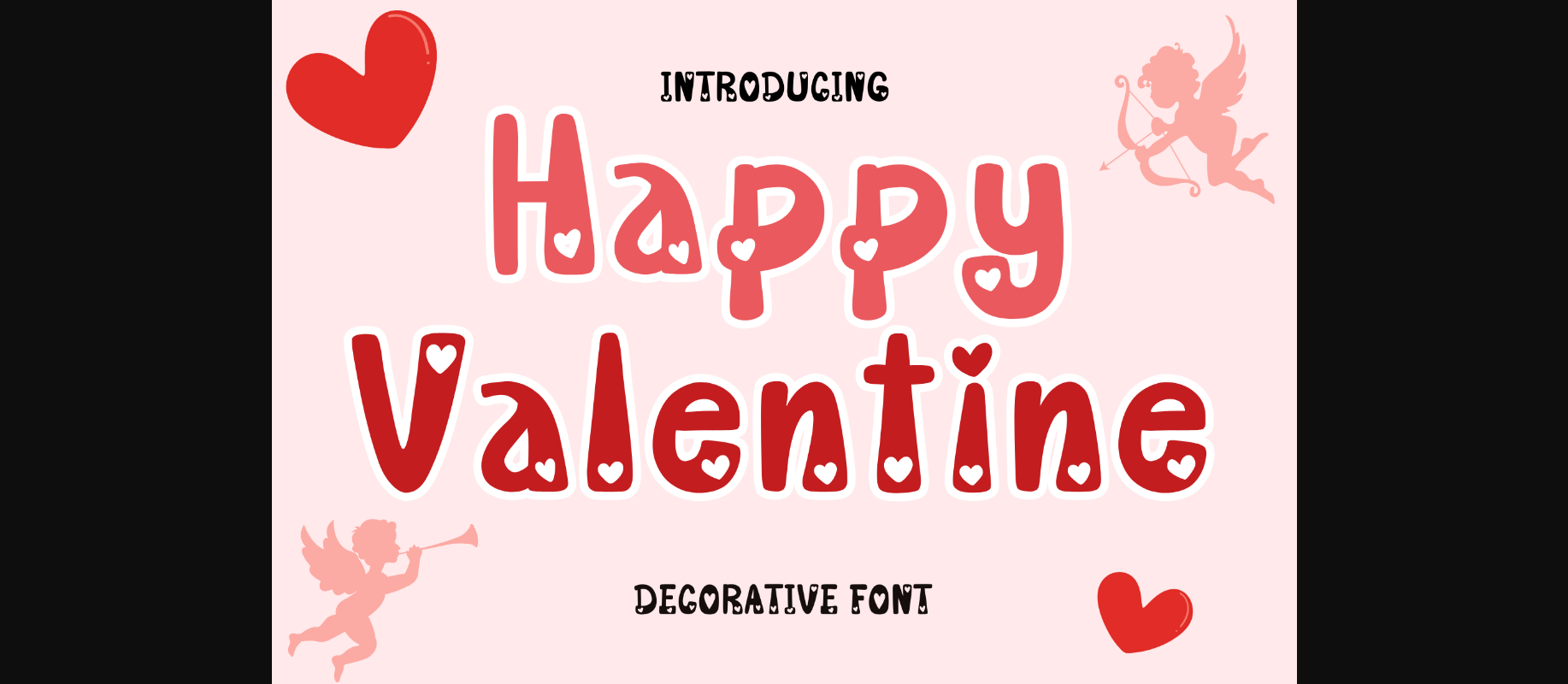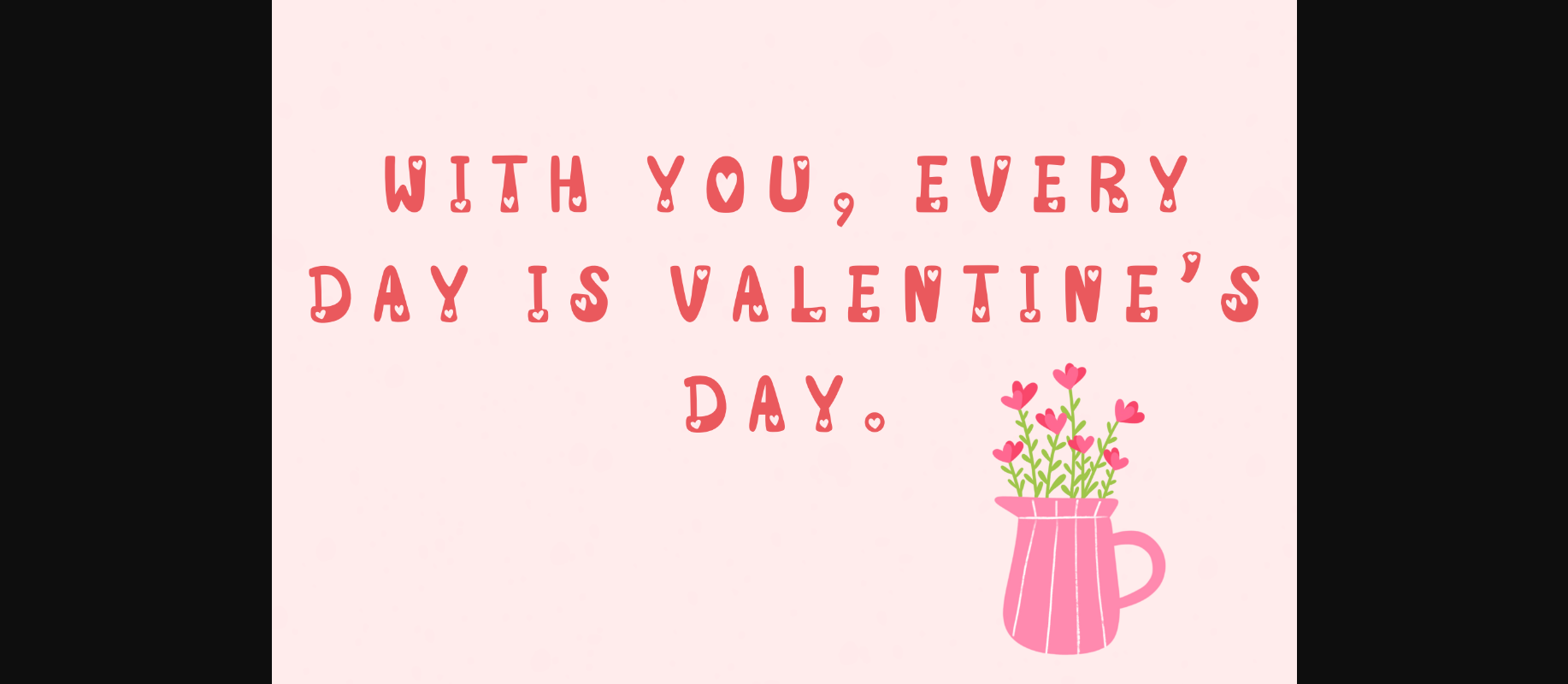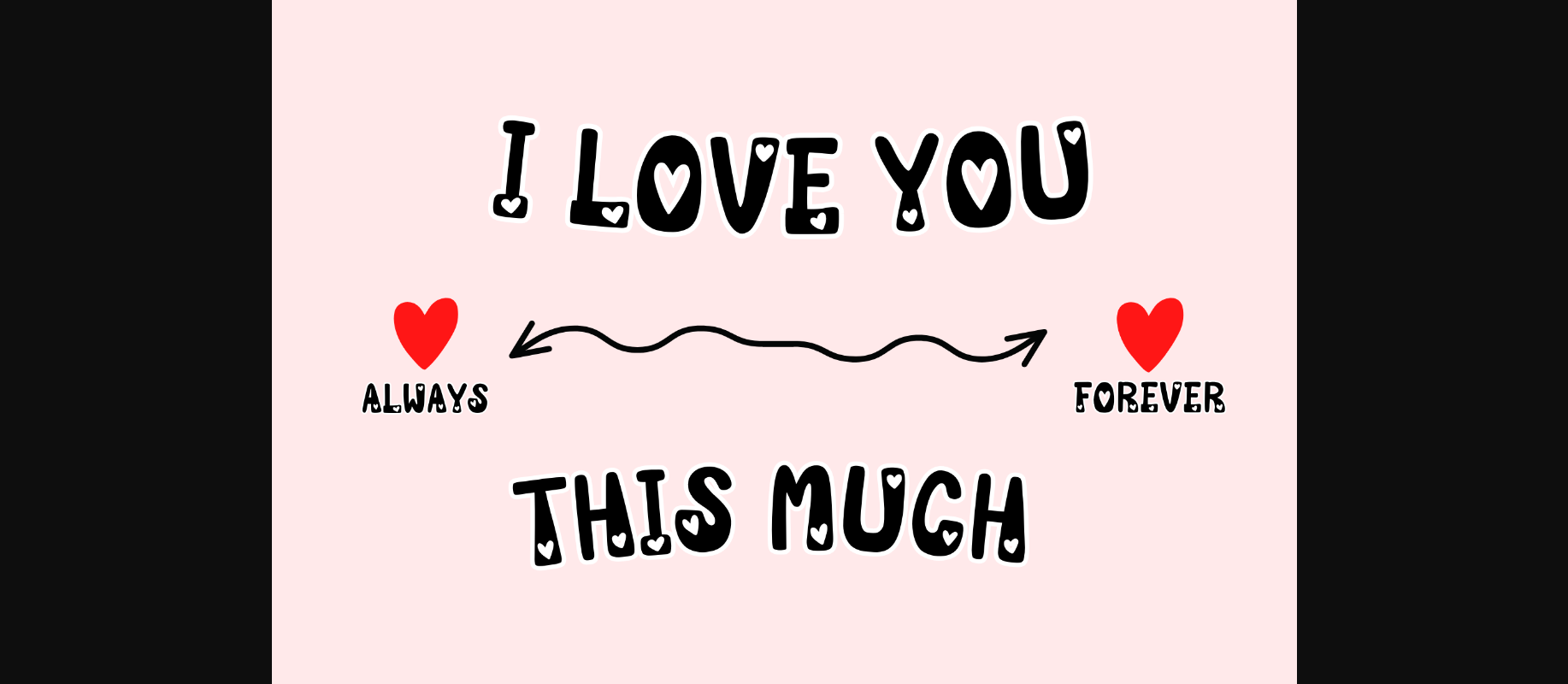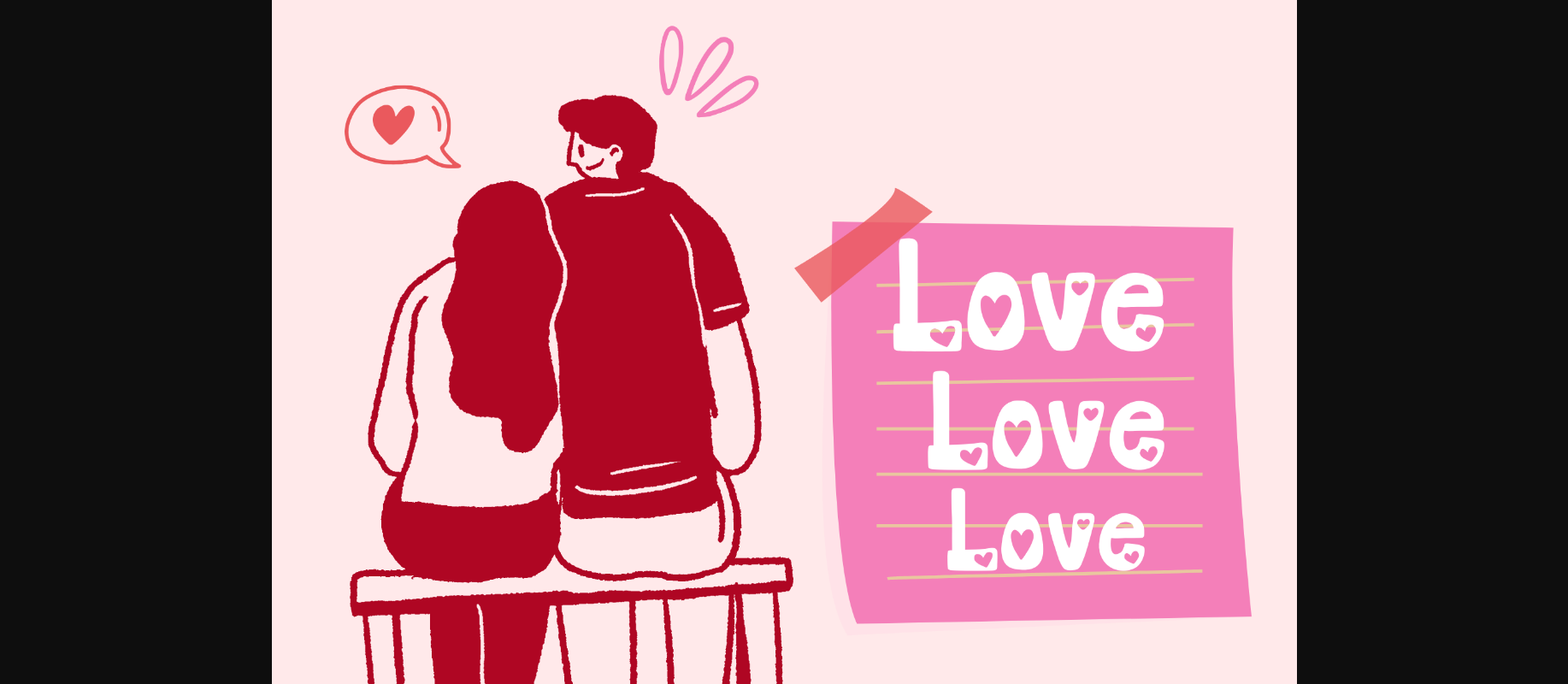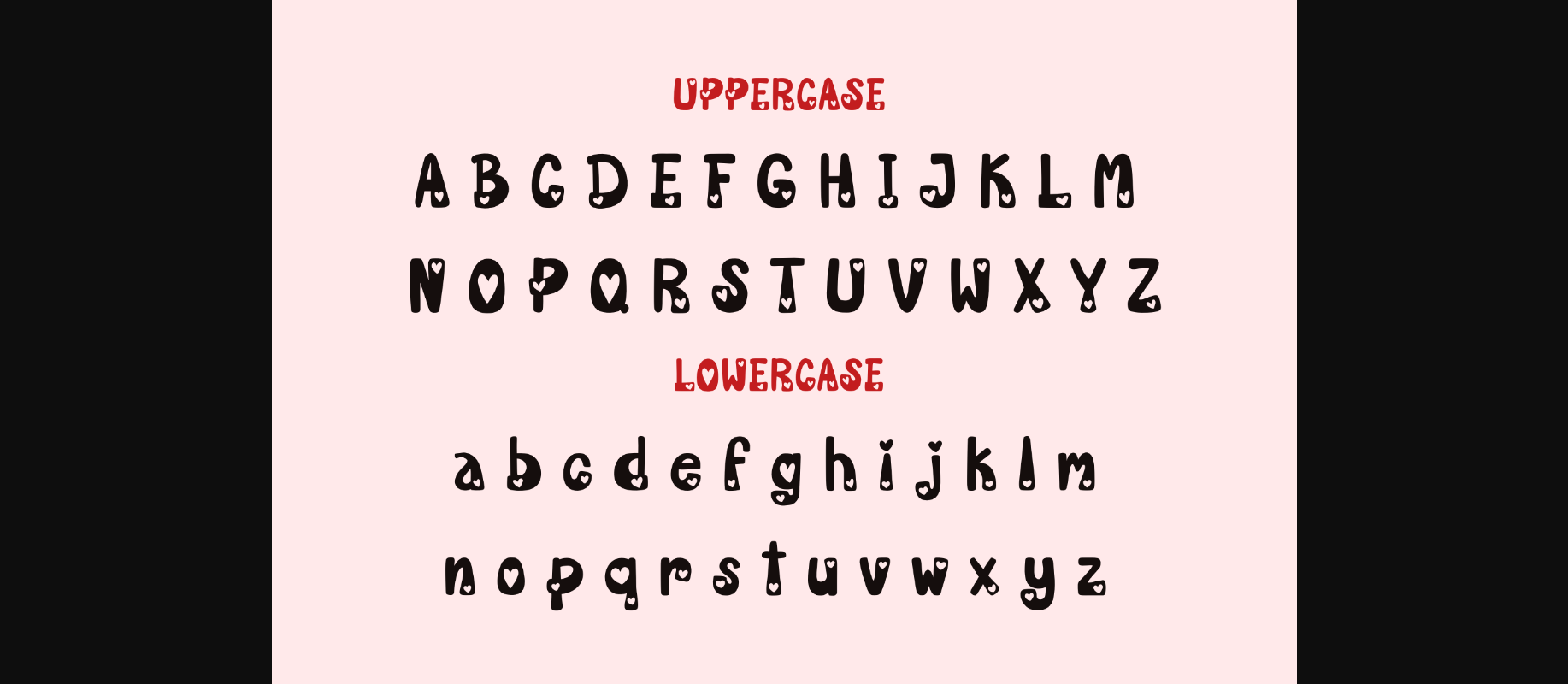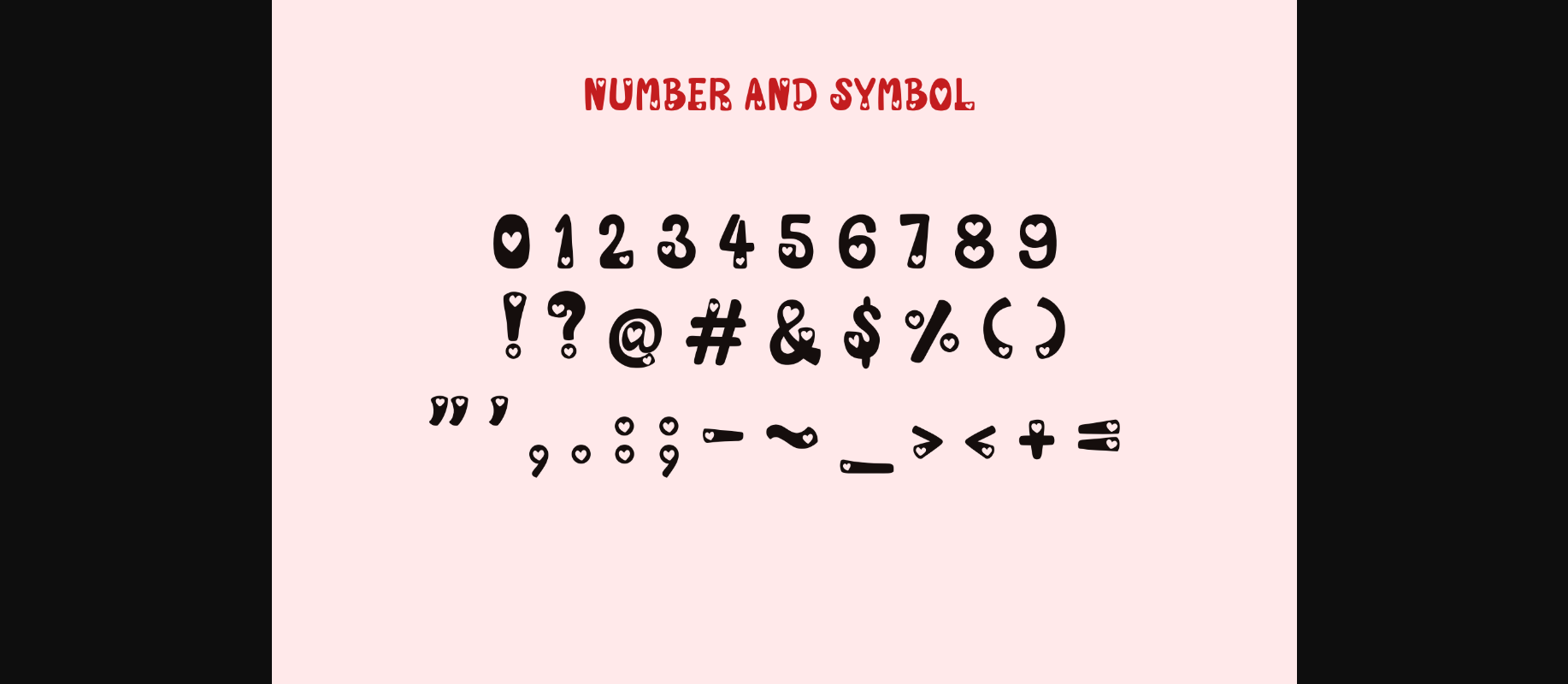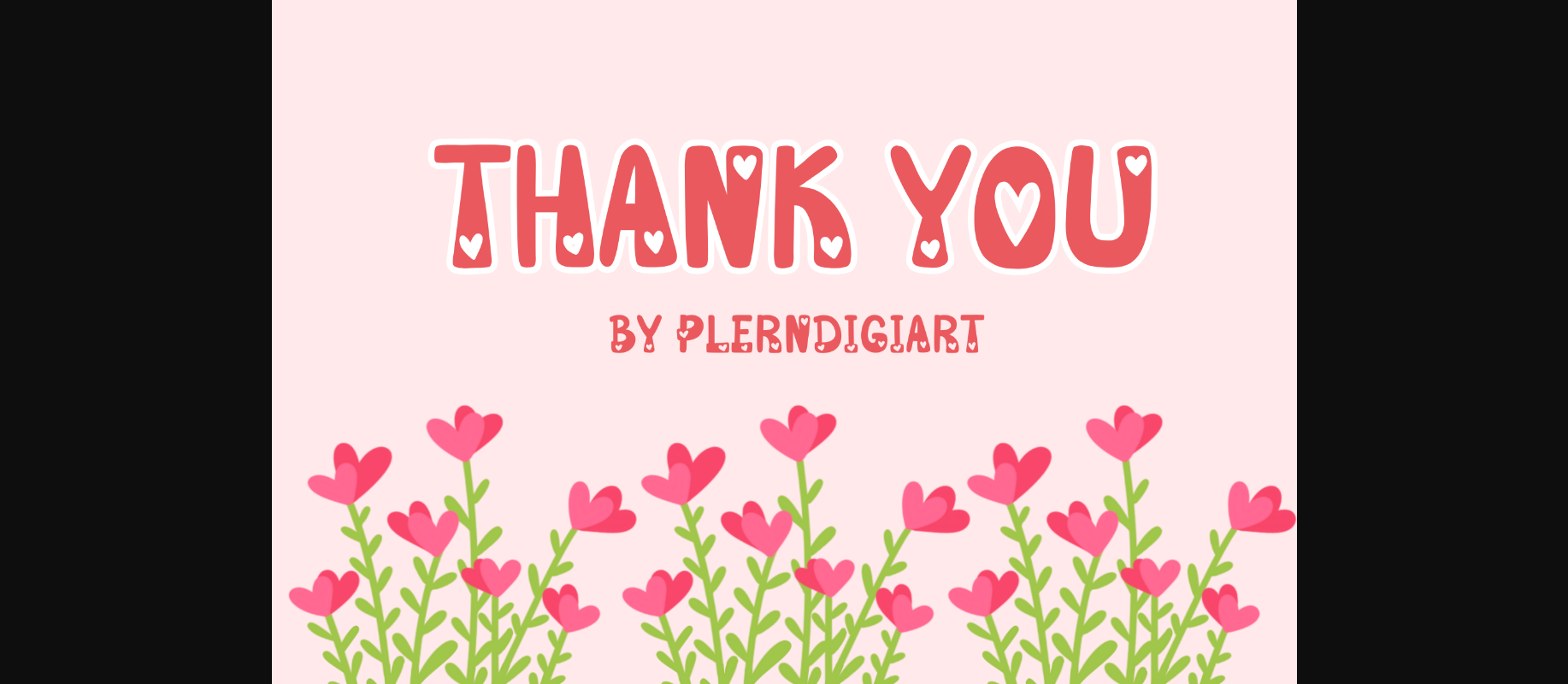
Happy Valentine Font
About Happy Valentine Font
Happy Valentine is a font that exudes adorable charm and is filled with delightful design elements. It possesses a vibrant and irresistibly cute atmosphere, characterized by its simplicity and cuteness that is hard to resist.